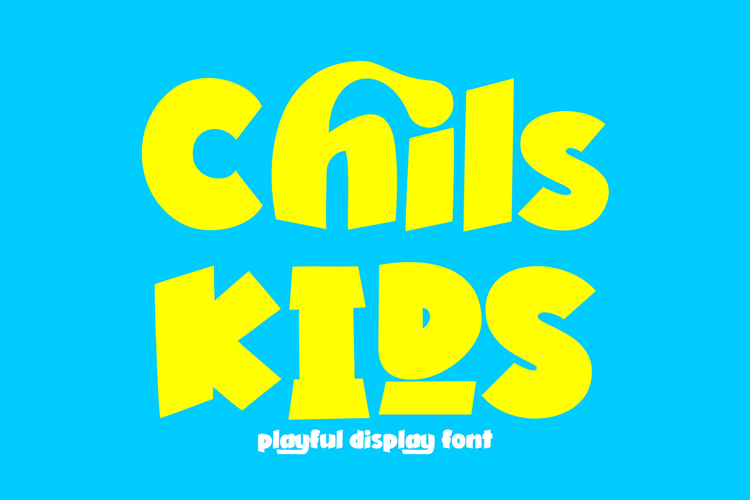
Chil Kids | Playful Display Font Fun Style with Ligatures
Chil Kids is a playful display typeface that captures the joyful spirit of childhood and transforms it into a versatile design tool. With its soft curves, rounded shapes, and lively character, this font is designed to bring warmth, creativity, and fun into any project. It is a perfect choice for designers who want to create designs that feel friendly, engaging, and full of personality.
The design of Chil Kids focuses on simplicity and charm. Each letter is carefully crafted to maintain a balance between readability and playful expression. The rounded forms create a soft and approachable look, making the font suitable for a wide range of applications, especially those targeting children and family-oriented audiences.
One of the key strengths of Chil Kids lies in its advanced typographic features. The inclusion of ligatures allows for smoother and more natural letter combinations, enhancing the overall flow of the text. Stylistic alternates provide additional variation, giving designers the freedom to customize their typography and create unique visual outcomes.
The font includes both uppercase and lowercase characters, ensuring flexibility in design. It also supports multilingual characters, making it suitable for global projects. Numbers and punctuation are included and designed to match the playful aesthetic, ensuring consistency across all text elements.
Chil Kids excels in projects that require a cheerful and inviting tone. It is ideal for children’s books, educational materials, branding, packaging, greeting cards, and digital content. Its friendly personality makes it highly effective in capturing attention and conveying positive emotions.
In branding, Chil Kids helps create a strong and memorable identity. It is perfect for businesses that want to communicate fun and creativity, such as kids brands, toy companies, and family-focused services. The font’s unique style makes it stand out and leaves a lasting impression.
From a design perspective, Chil Kids is highly versatile. It can be paired with simple fonts for contrast or combined with decorative elements for a more playful look. Designers can experiment with colors, textures, and layouts to create engaging and dynamic visuals.
Technically, the font is optimized for both print and digital use. Its clean vector structure ensures high-quality results in any format. Whether used for large-scale designs or small details, it maintains its clarity and visual appeal.
Chil Kids is more than just a typeface—it is a creative expression of joy and imagination. It empowers designers to create designs that connect emotionally with their audience and bring ideas to life in a fun and engaging way.